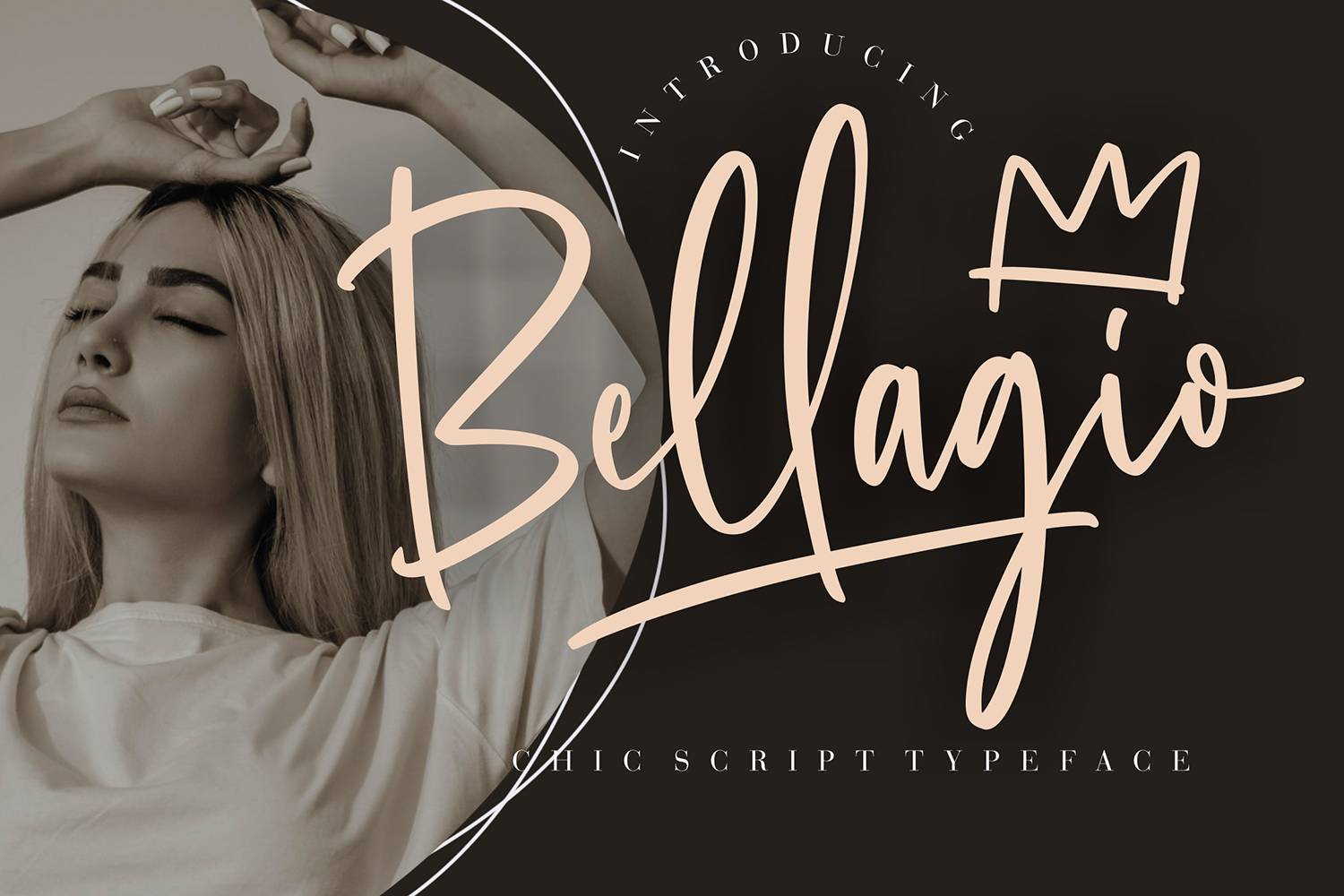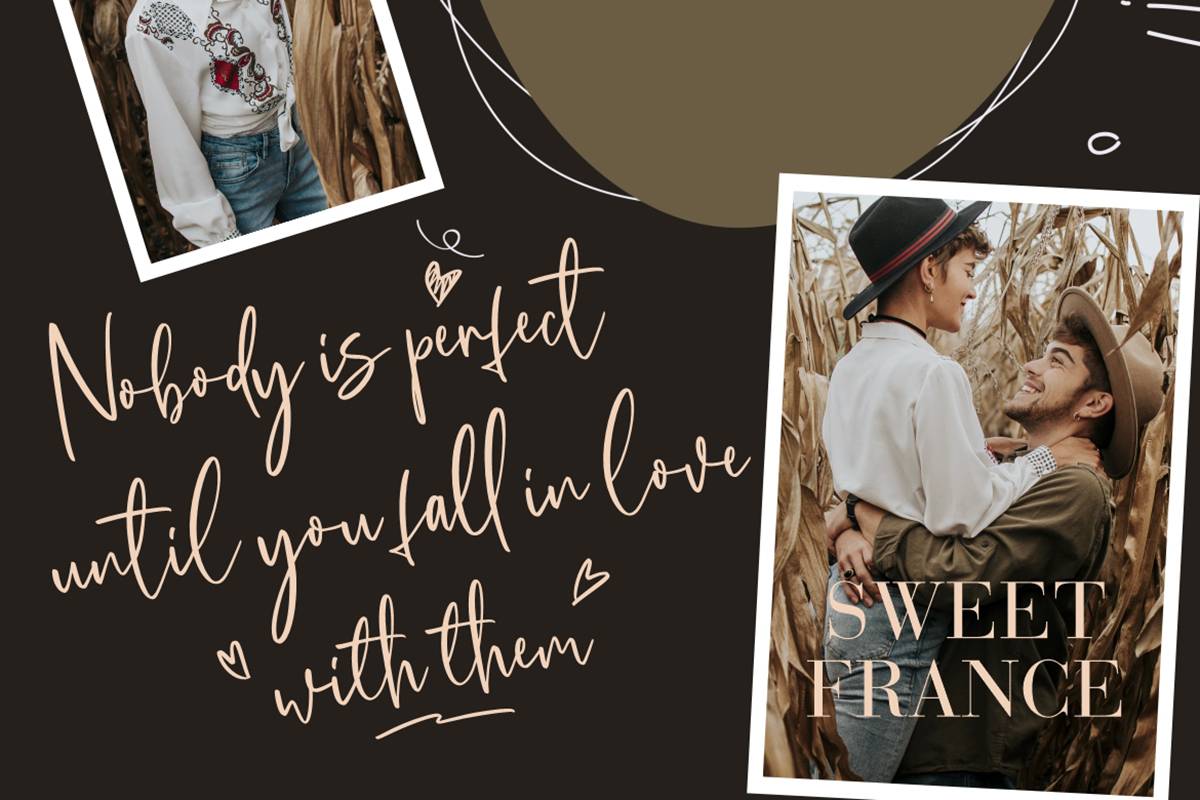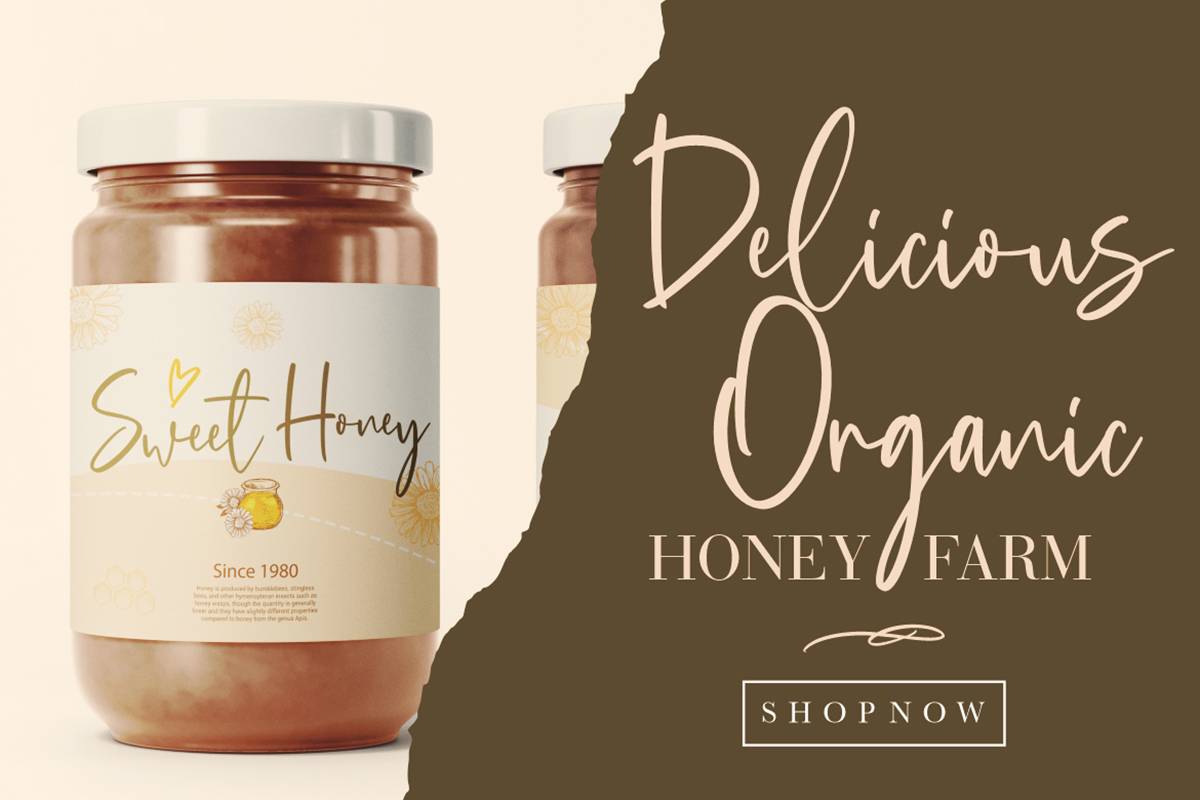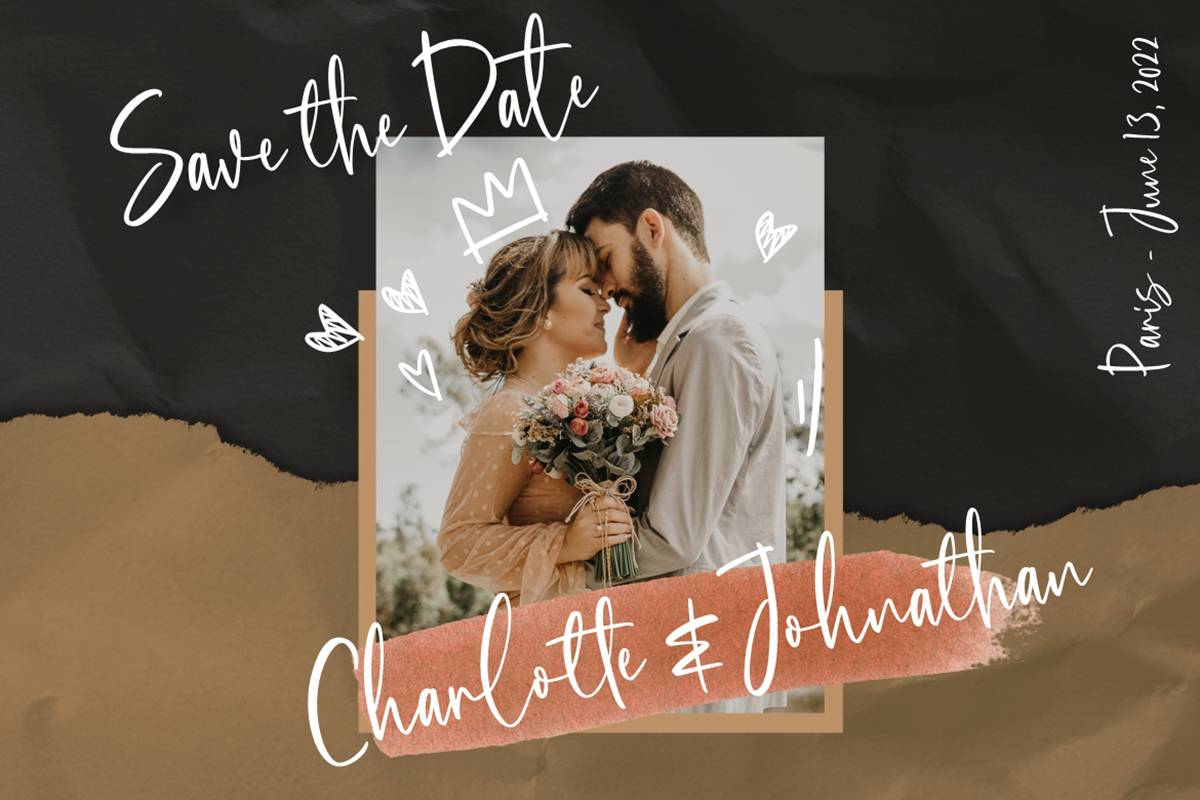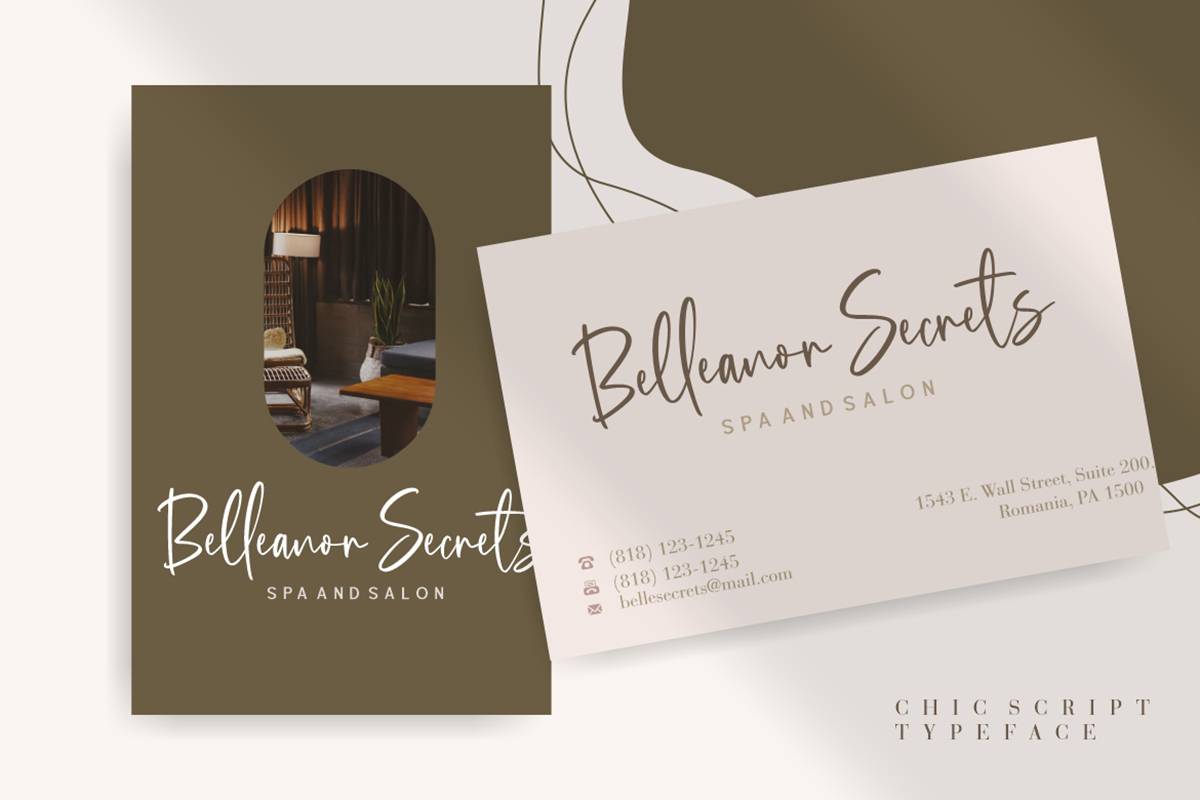
Bellagio is a stylish handwritten script font with a casual, flowing appearance that mimics natural pen strokes. Its slender letterforms and varied line thickness create an elegant yet approachable feel, making it perfect for creative branding, invitations, and personal projects that seek a modern, artistic touch. This font works especially well in designs that need a warm, expressive personality without losing readability.
Bellagio Font
About Bellagio Font